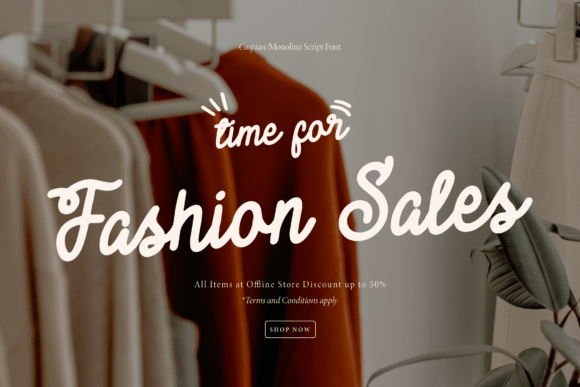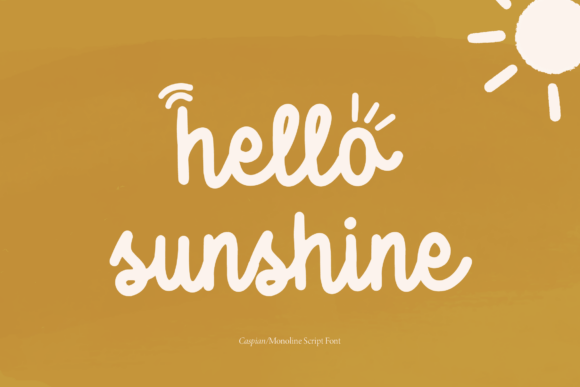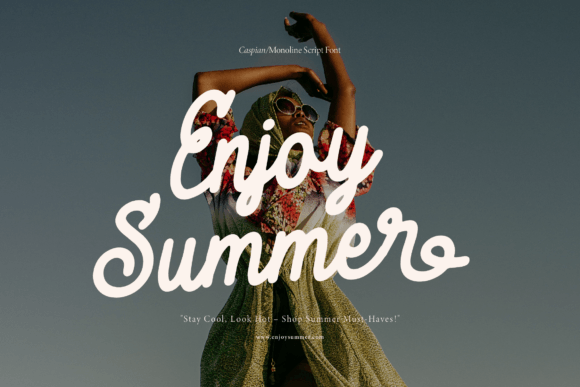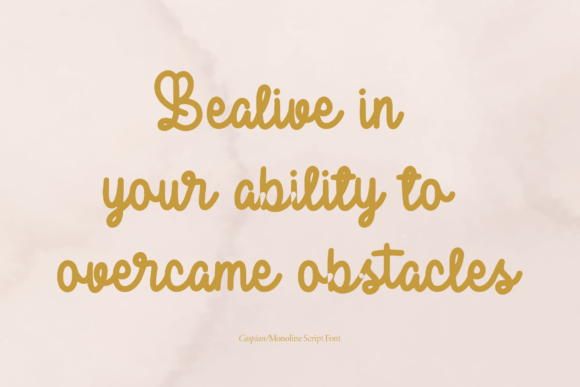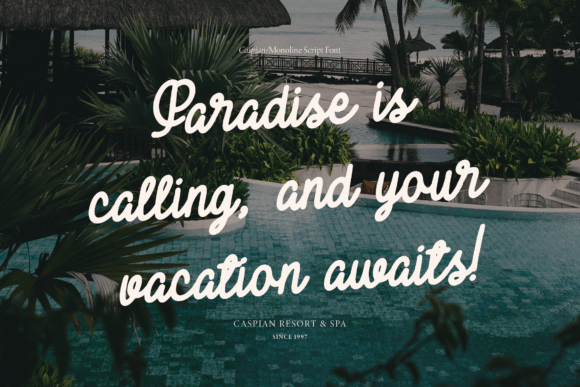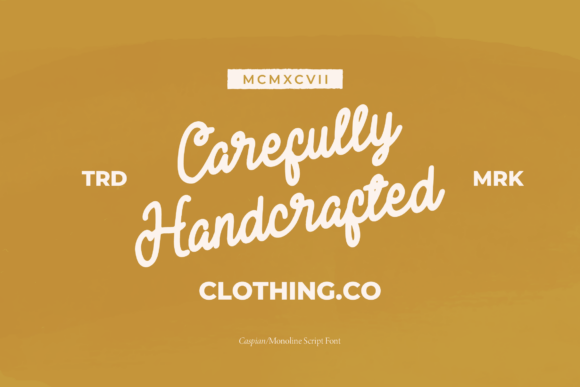
Caspian Font: Elevate Your Designs with Elegance and Sophistication
In the world of typography, a well-crafted font can make all the difference in elevating your designs from ordinary to extraordinary. Introducing Caspian, a smooth and elegant monoline script font that is sure to captivate designers and crafters alike. With its flowing, connected letters and clean aesthetic, Caspian is the perfect choice for creating stunning logos, invitations, headlines, and more.
The Beauty of Monoline Script
Caspian’s monoline script style is characterized by its single, fluid line that connects each letter, creating a beautiful, cursive flow. This style is both classic and modern, making it versatile enough to suit a wide range of design applications. The font’s smooth, elegant lines evoke a sense of sophistication and refinement, perfect for designs that require a touch of luxury and glamour.
Key Features of Caspian Font
- Smooth and Elegant Lines: Caspian’s monoline script style features smooth, flowing lines that connect each letter, creating a beautiful, cursive flow.
- Clean and Stylish Look: The font’s clean aesthetic makes it perfect for designs that require a touch of elegance and sophistication.
- Easy to Read: Despite its elegant appearance, Caspian is easy to read, making it suitable for use in a variety of design applications, from logos and invitations to headlines and body copy.
- Perfect for Logos and Branding: Caspian’s unique, flowing script style makes it an excellent choice for logos, wordmarks, and branding applications.
Design Applications for Caspian Font
Caspian’s versatility and elegance make it suitable for a wide range of design applications, including:
- Logos and Branding: Create stunning logos, wordmarks, and branding materials that exude elegance and sophistication.
- Invitations and Stationery: Add a touch of luxury and glamour to your invitations, stationery, and greeting cards.
- Headlines and Titles: Use Caspian to create eye-catching headlines and titles for your website, blog, or social media channels.
- Packaging and Product Design: Elevate your packaging and product design with Caspian’s elegant, monoline script style.
Why Choose Caspian Font?
With so many fonts available, why choose Caspian? Here are just a few reasons why Caspian stands out from the crowd:
- Unique and Elegant Style: Caspian’s monoline script style is both unique and elegant, making it perfect for designers who want to create stunning, eye-catching designs.
- Highly Versatile: Caspian is suitable for a wide range of design applications, from logos and branding to invitations and headlines.
In conclusion, Caspian is a smooth and elegant monoline script font that is sure to elevate your designs to new heights. With its flowing, connected letters and clean aesthetic, Caspian is perfect for creating stunning logos, invitations, headlines, and more. Whether you’re a designer, crafter, or DIY enthusiast, Caspian is an excellent choice for anyone looking to add a touch of elegance and sophistication to their designs.